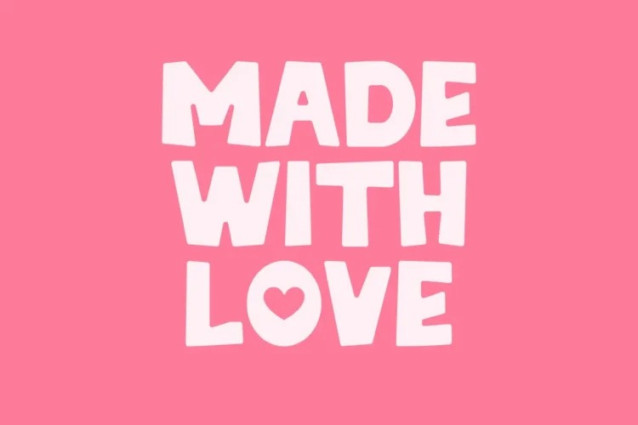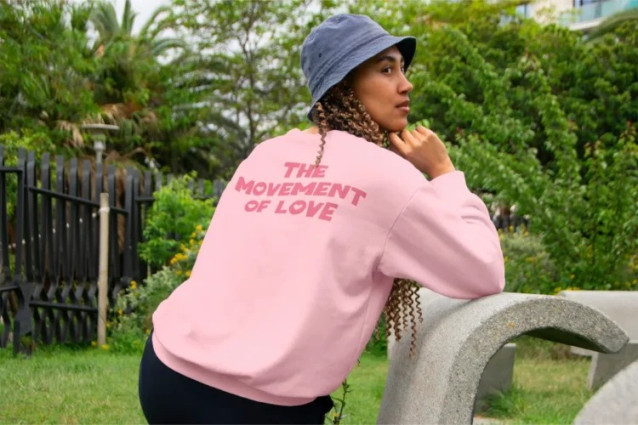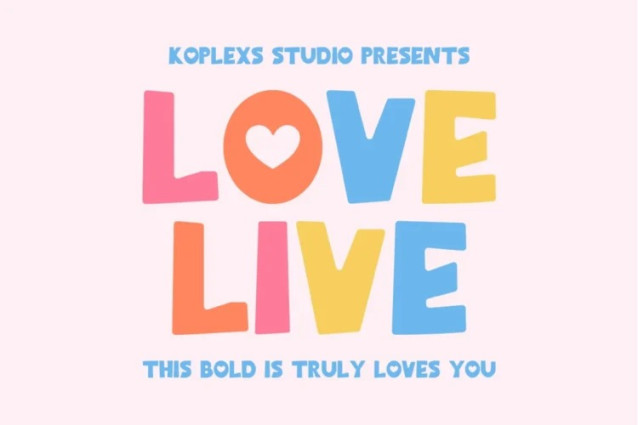
Love Live Display Font
Love Live Display Font a charming and thick bold display font that radiates warmth and playful energy. Designed to make a powerful impact, this typeface is packed with personality, making it the perfect choice for projects that need to speak from the heart. Its friendly and approachable letterforms are incredibly versatile, blending a sense of nostalgic comfort with modern boldness.
Love Live is more than just a display font; it’s a fancy font with a playful twist. It effortlessly captures the essence of a love font, making it an ideal choice for Valentine font themes, romantic quotes, and heartfelt gifts. Imagine using this honey font for crafting sweet messages for Mothers Day fonts, creating cozy branding for a small business, or designing attention-grabbing poster font layouts.